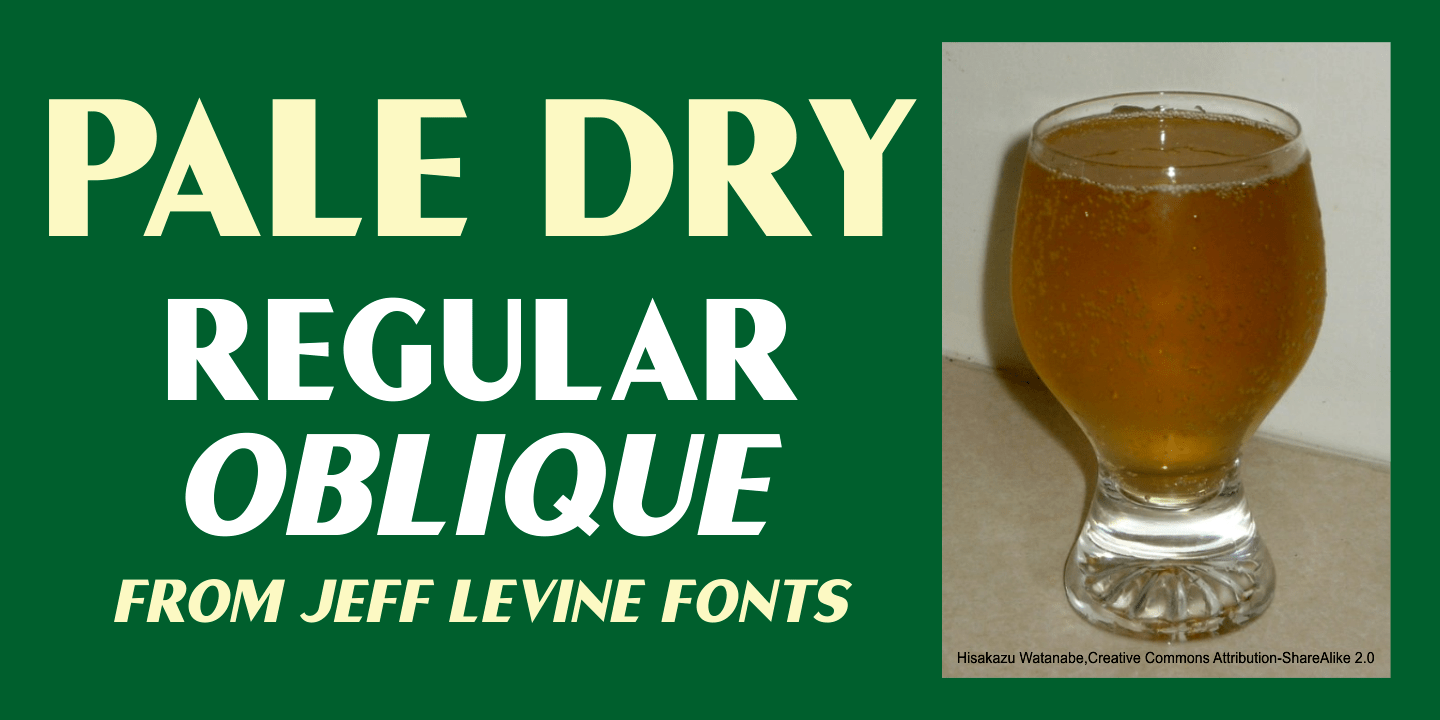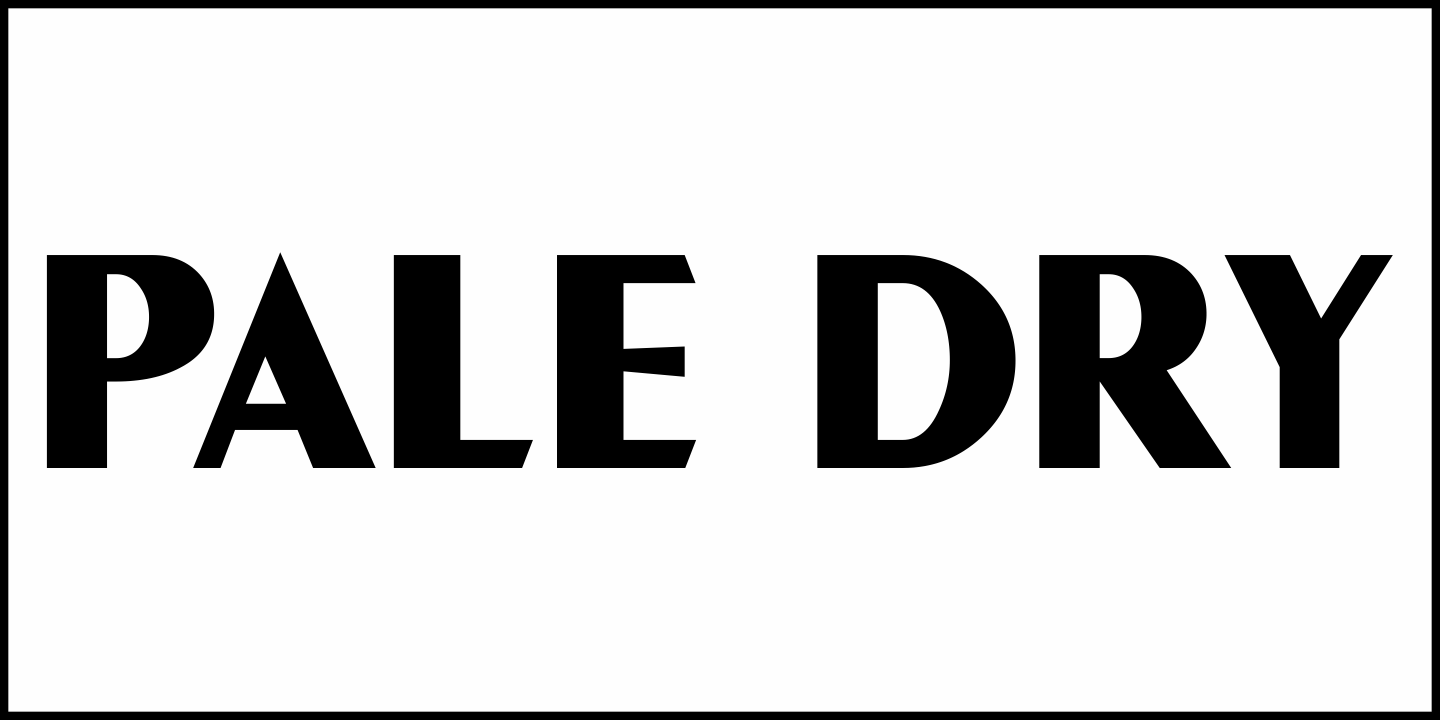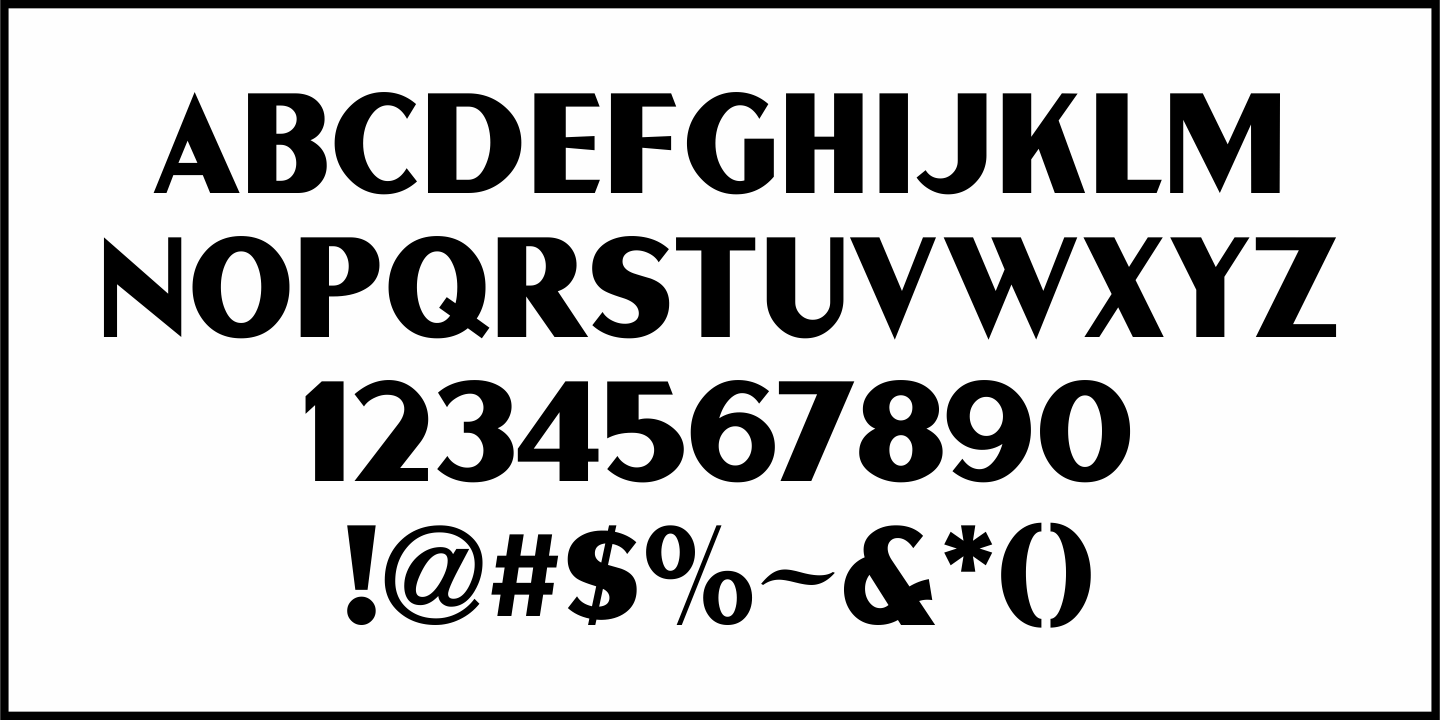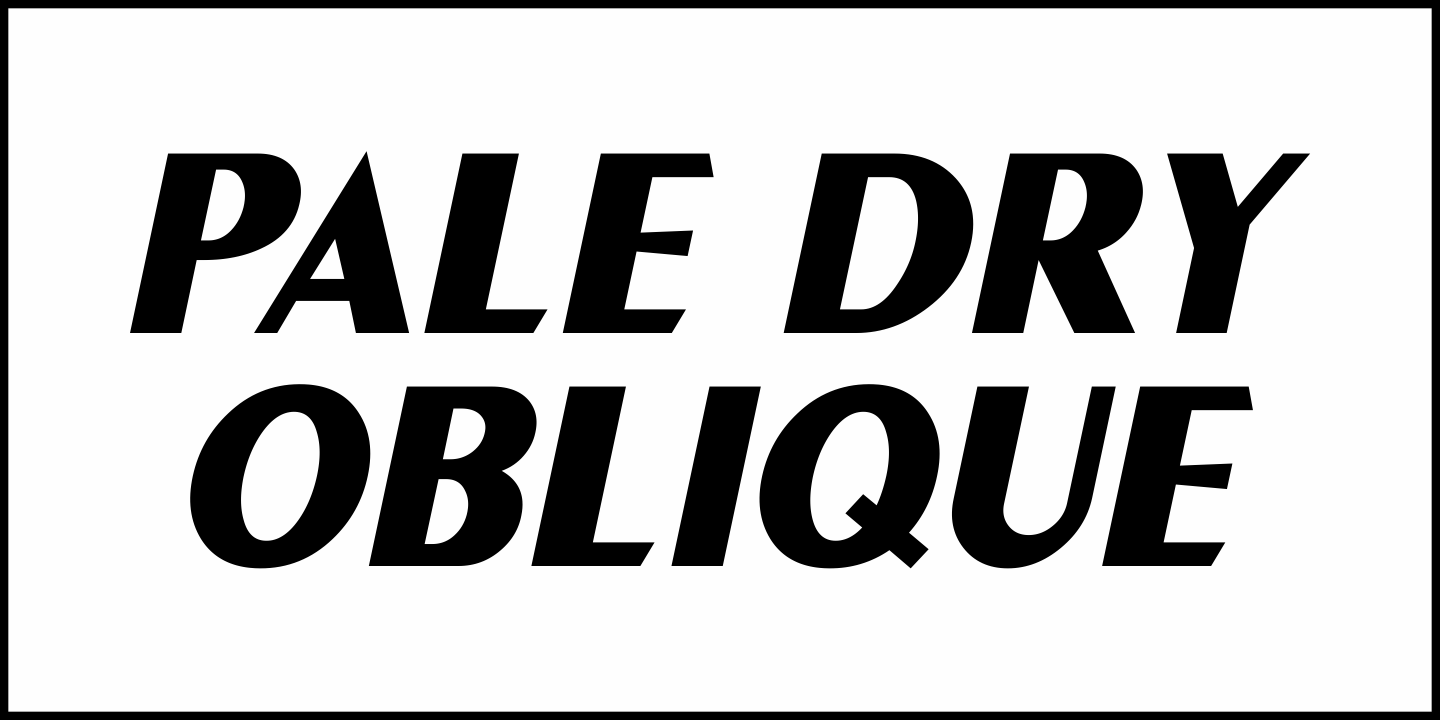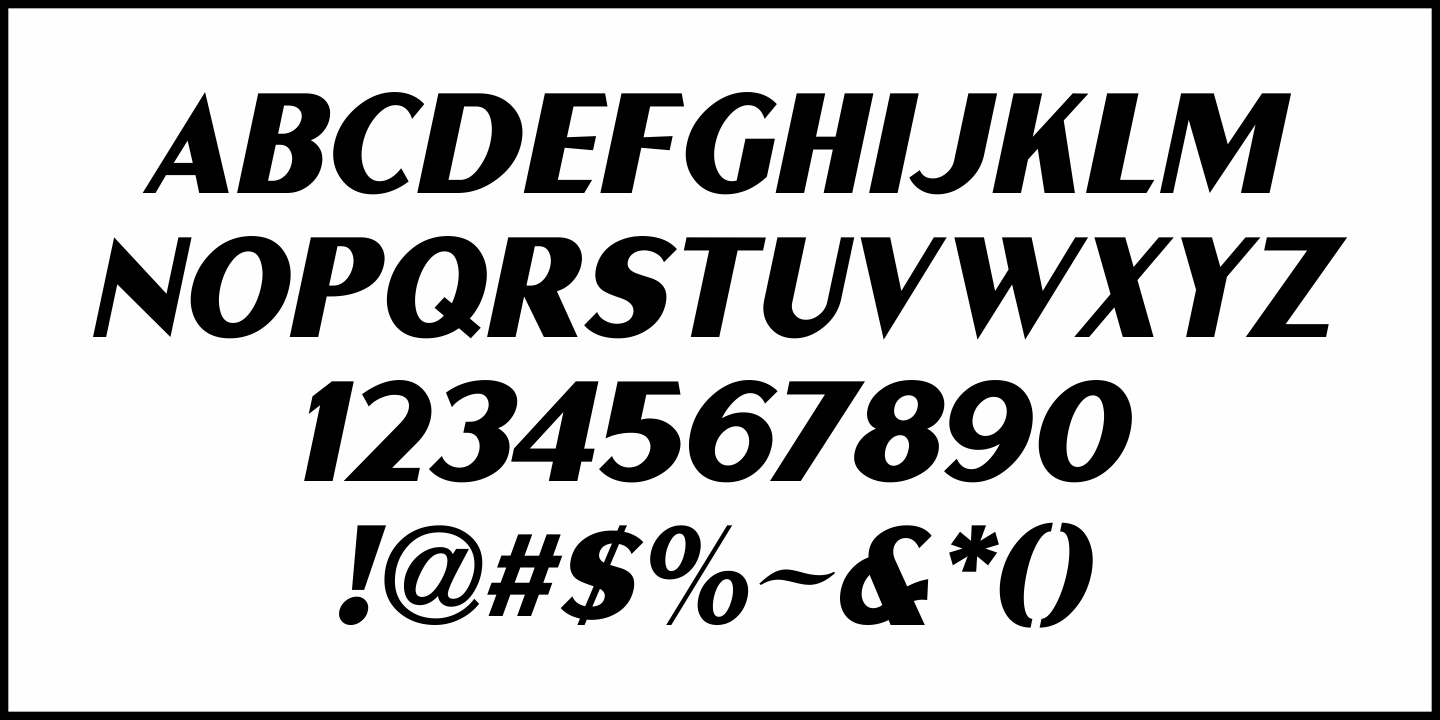
Pale Dry JNL
What started out as a custom type design for a client based on a 1940s-era metal sign advertising Adanac Ginger Ale evolved into Pale Dry JNL, which is available in both regular and oblique versions.
The hand lettering is a bold sans serif 'thick and thin' design - a lettering style almost obligatory of the Art Deco era.
For a time, Adanac Ginger Ale was a direct competitor to Canadry Dry, and its name is actually 'Canada" spelled backward. "Pale Dry" is a less sweet, lighter version of more traditional ginger ale.